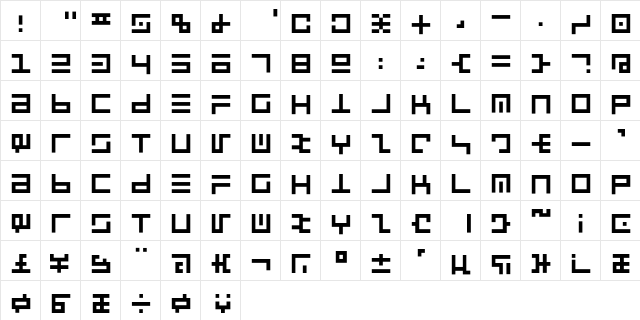
LinearFace Regular Font Preview
LinearFace Regular
Design Context for LinearFace Typeface
LinearFace takes a measured approach to typography — its balanced proportions and neutral character make it a reliable workhorse for both digital and print work.